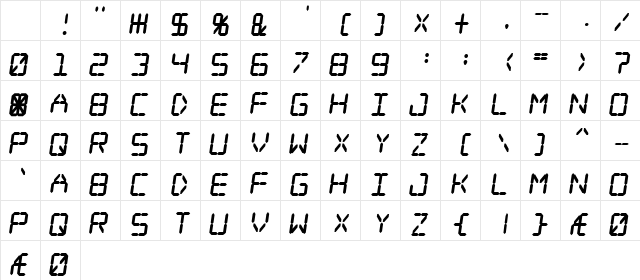
Complete Digital dream Fat Skew Regular glyph index. Displaying only characters natively supported by Digital dream Fat Skew Regular font.
Digital dream Fat Skew has a distinctly futuristic character, with geometric precision and clean angles that feel at home in technology, gaming, and sci-fi contexts.